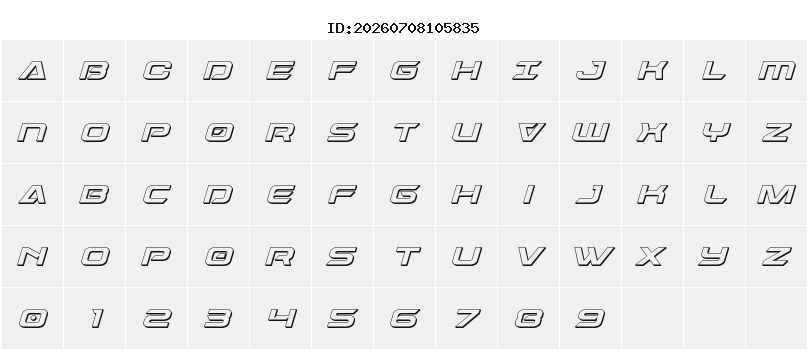
Dameron 3D Italic Preview
• Font Name: Dameron 3D Italic
• Full Font Name: Dameron 3D Italic
About Dameron 3D Italic.ttf
Dameron 3D Italic.ttf is a modern, elegant sans-serif font designed for ultimate readability and visual harmony. Perfect for branding, headlines, web design, and print materials.